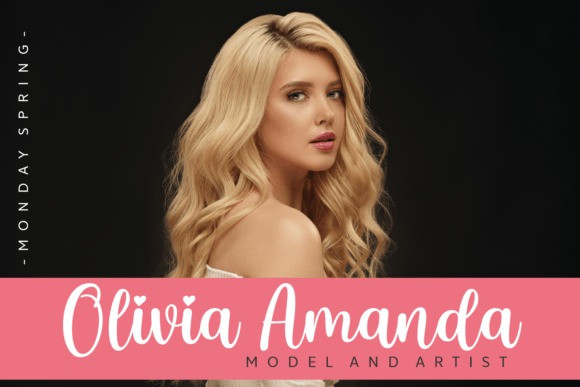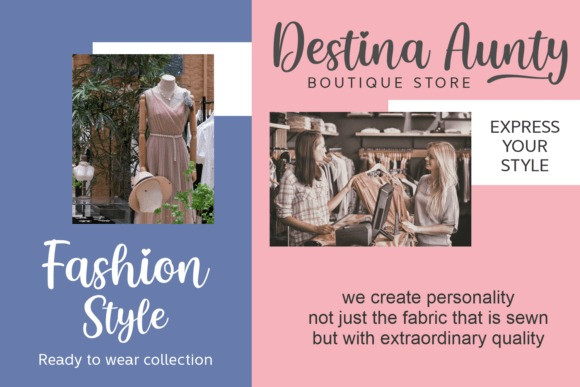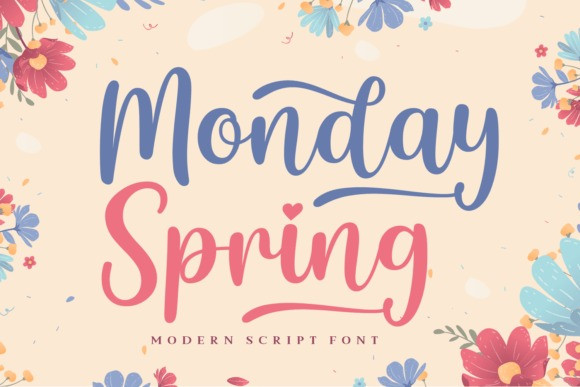
Monday Spring Font
Monday Spring Font is a clean and elegant script font that exudes a refreshing vibe. With its smooth curves and gentle strokes, this font is perfect for modern designs that require a touch of sophistication. Its versatile nature makes it a great choice for logos, branding, invitations, and more.